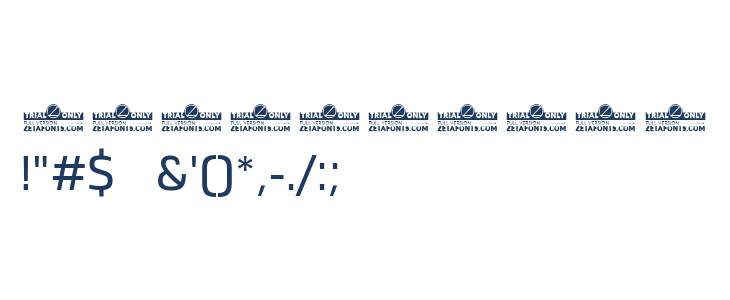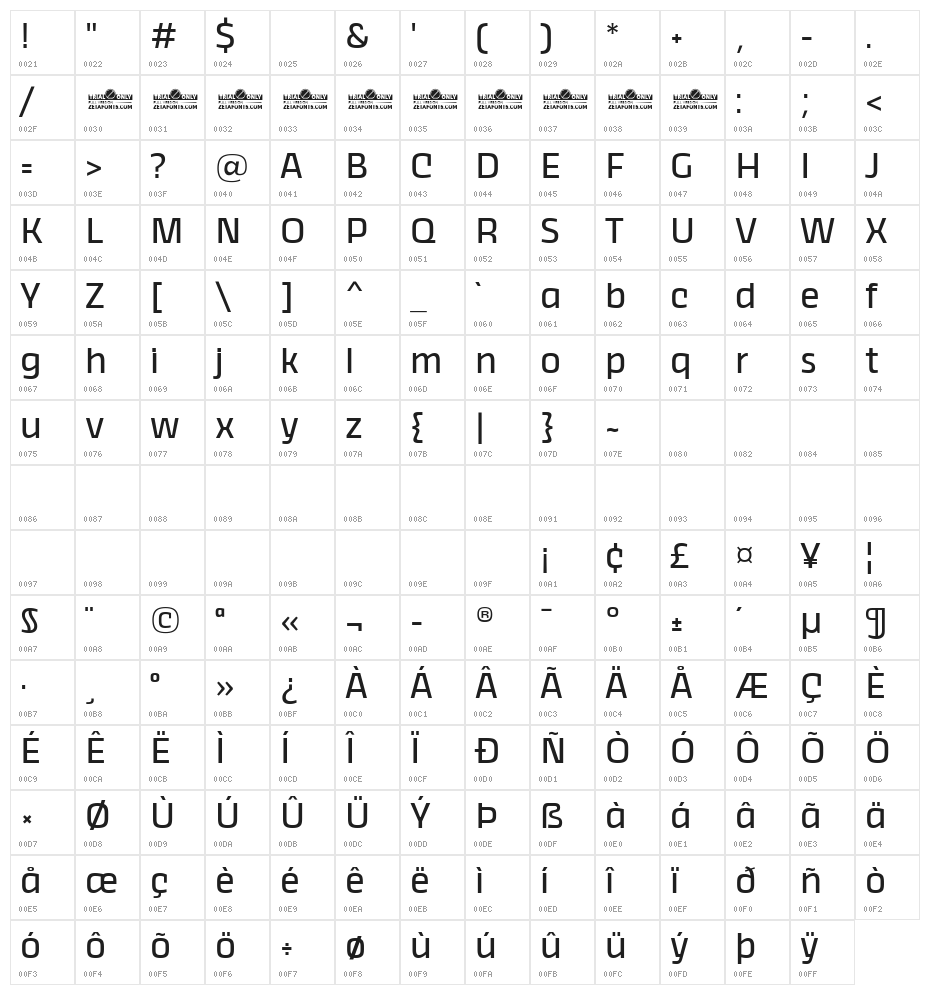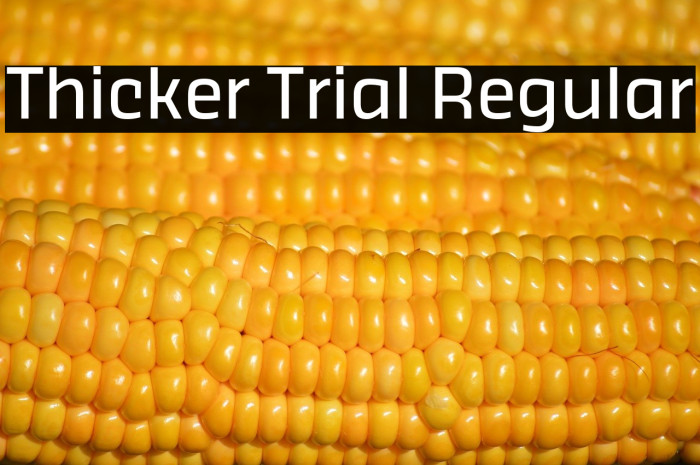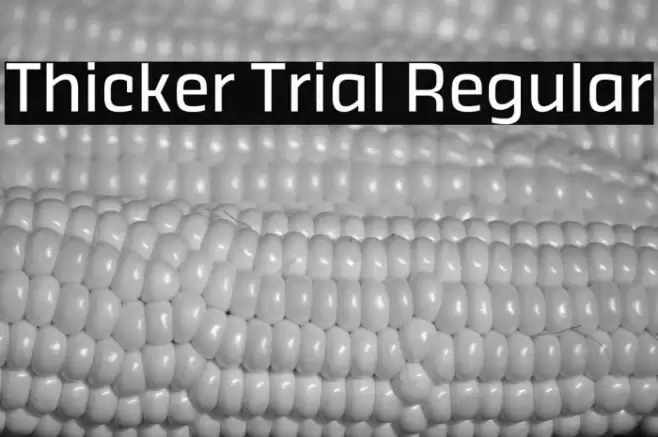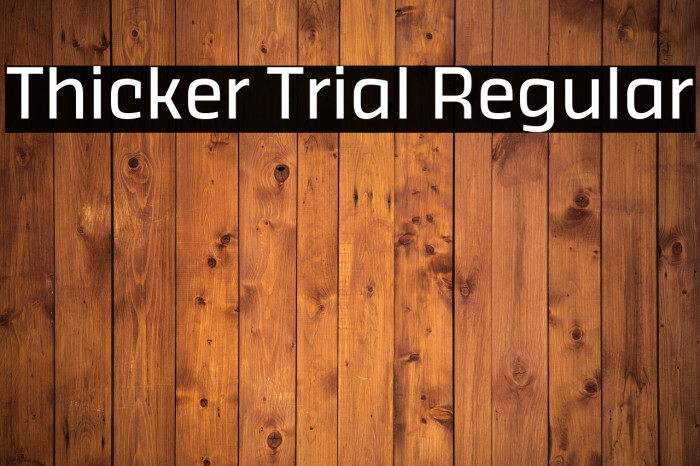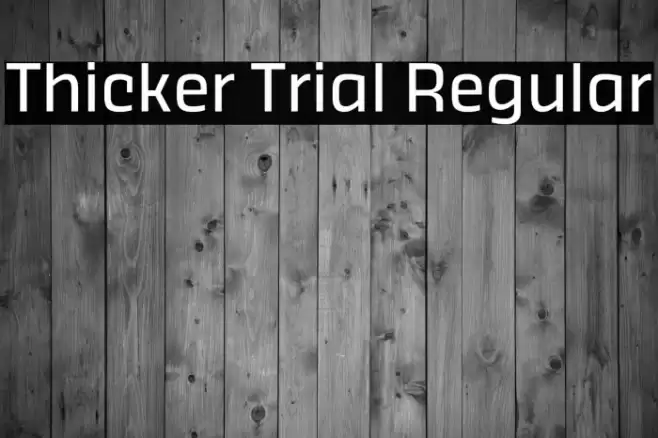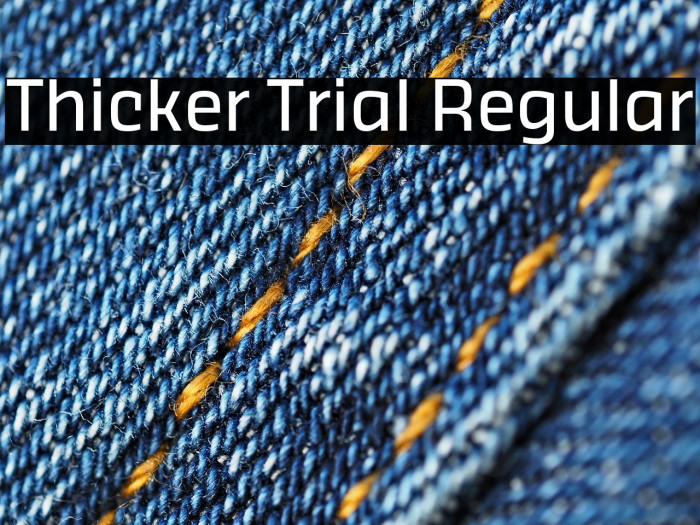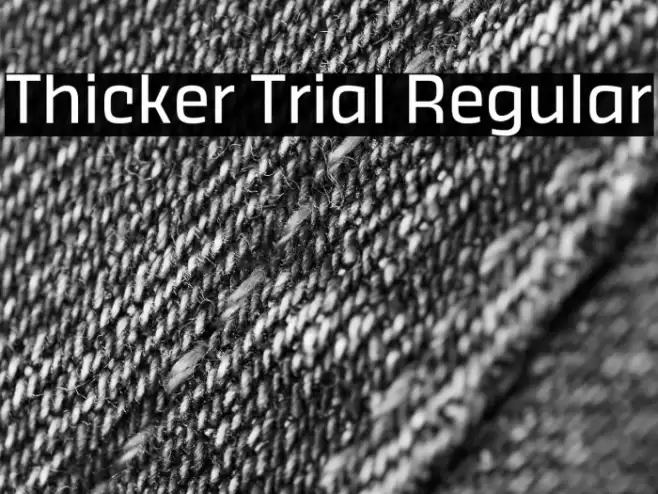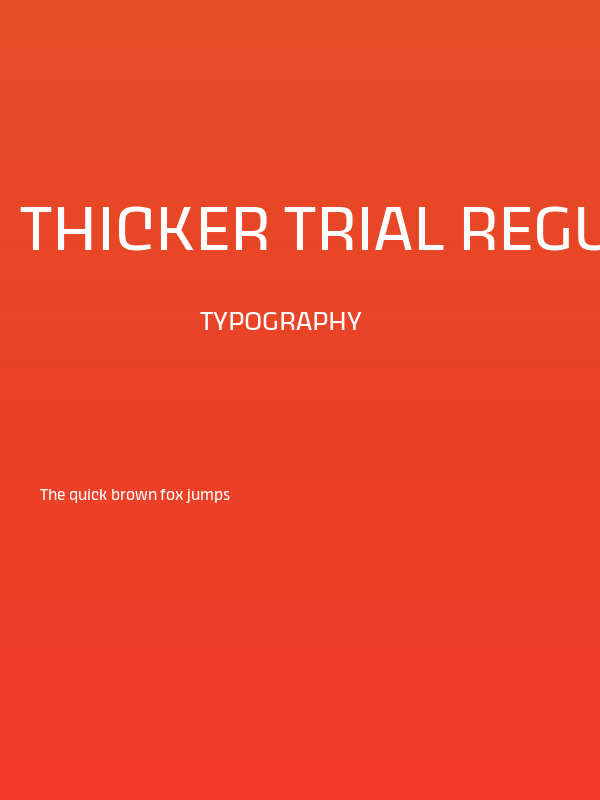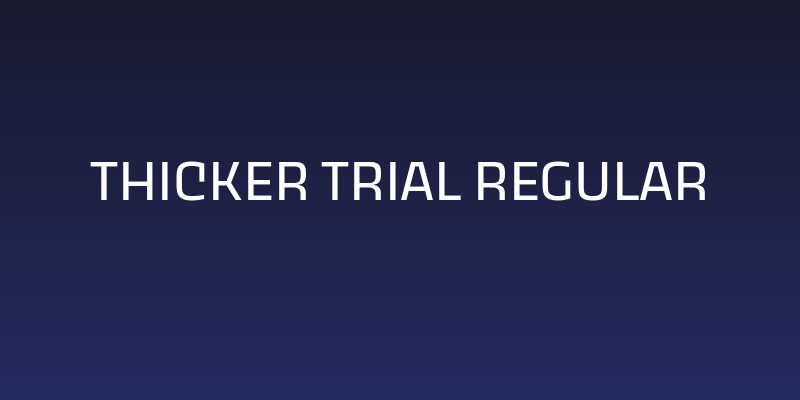
Thicker Trial Regular Font
Thicker Trial Regular Description
This font features a clean and modern sans-serif design with a focus on readability and simplicity. The characters are uniformly structured with a consistent stroke width, giving it a balanced and harmonious appearance. The uppercase letters are bold and assertive, while the lowercase letters maintain a friendly and approachable feel. The numerals are clear and easy to distinguish, making them suitable for various applications. Special characters are well-integrated, ensuring versatility in design projects. This font's straightforward style makes it ideal for both digital and print media.
| Proposed Projects | Ideal for branding, web design, advertising, and editorial layouts where clarity and modernity are essential. |